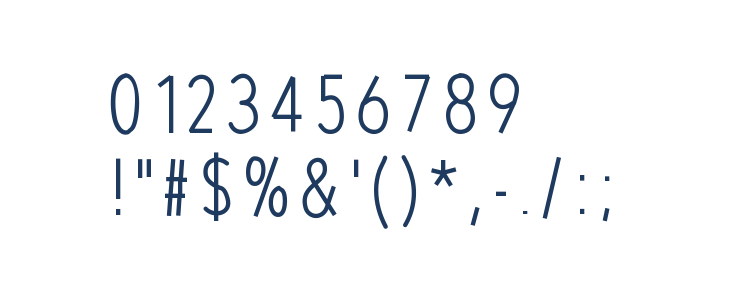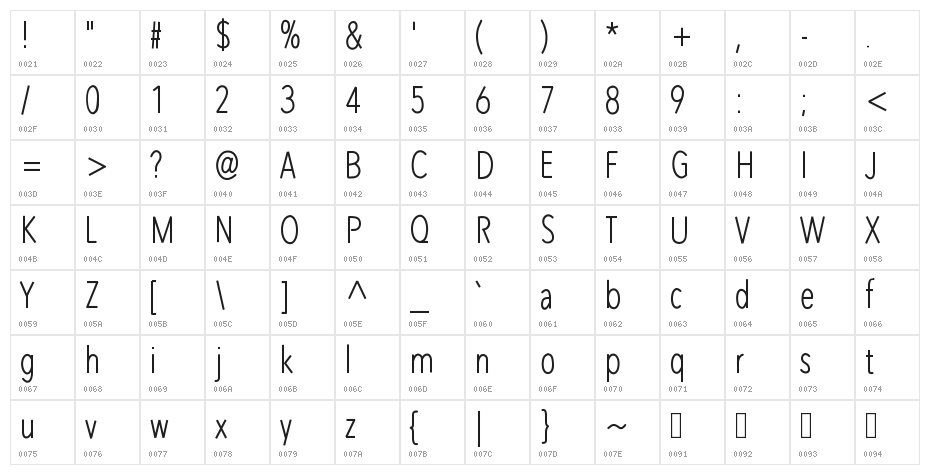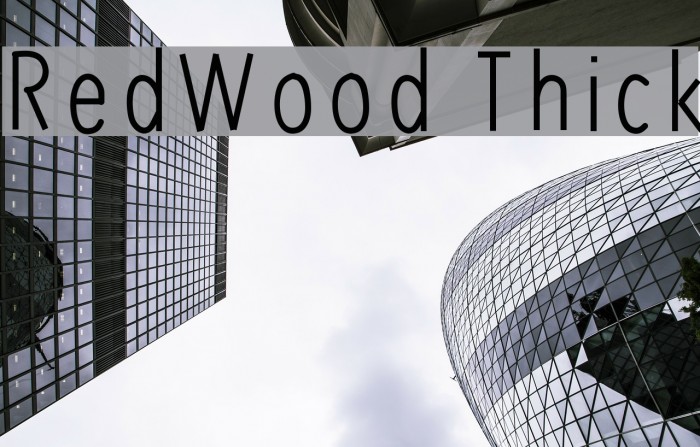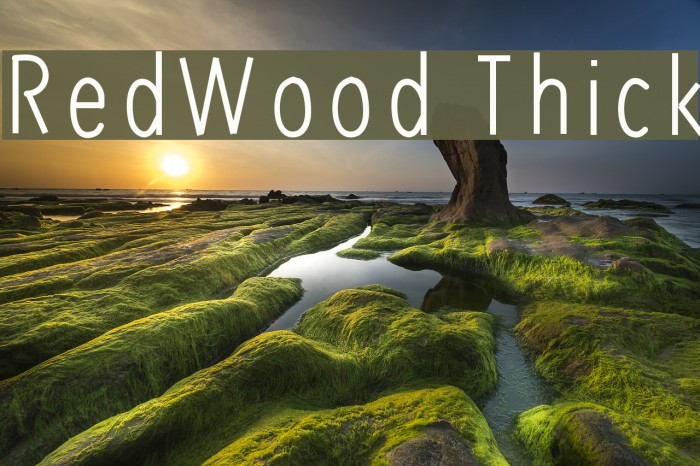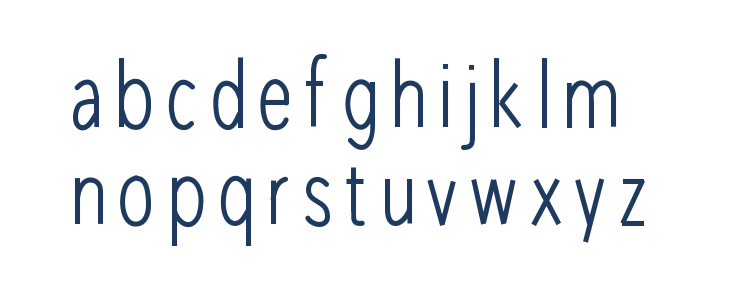
RedWood Thick Font
RedWood Thick Description
This font features a clean and modern sans-serif design with uniform stroke widths, providing a balanced and harmonious appearance. The characters are well-proportioned, offering excellent readability across both uppercase and lowercase letters. The numerals are distinct and clear, making them suitable for various applications. Special characters are included, maintaining the font's cohesive style. The overall look is sleek and professional, ideal for contemporary design projects.